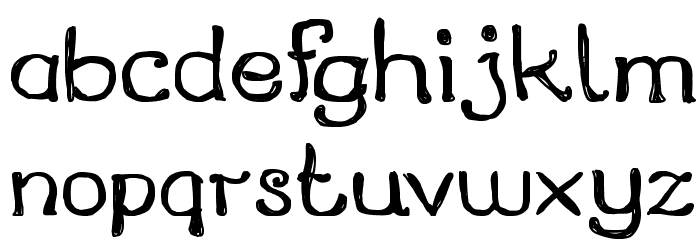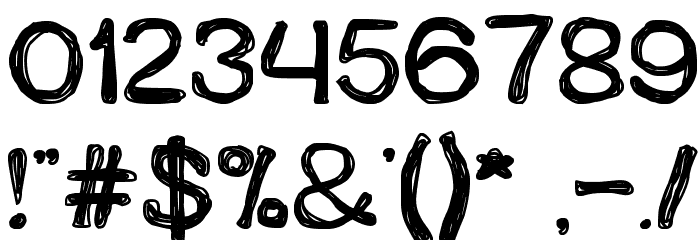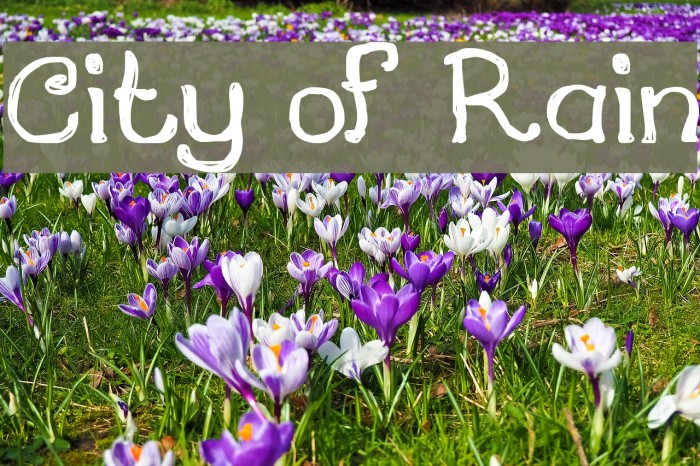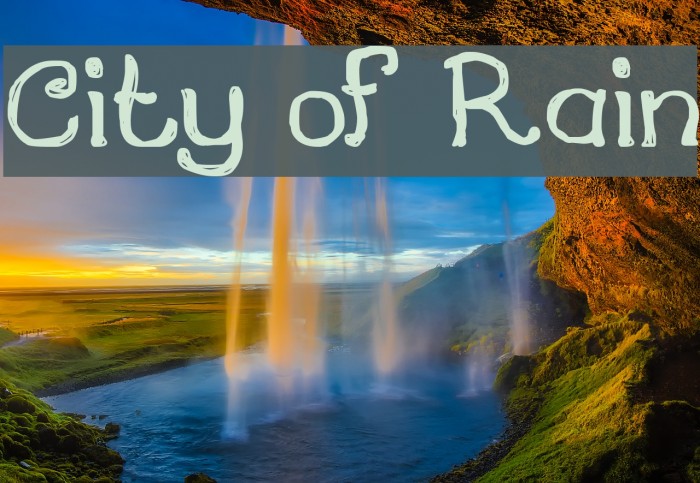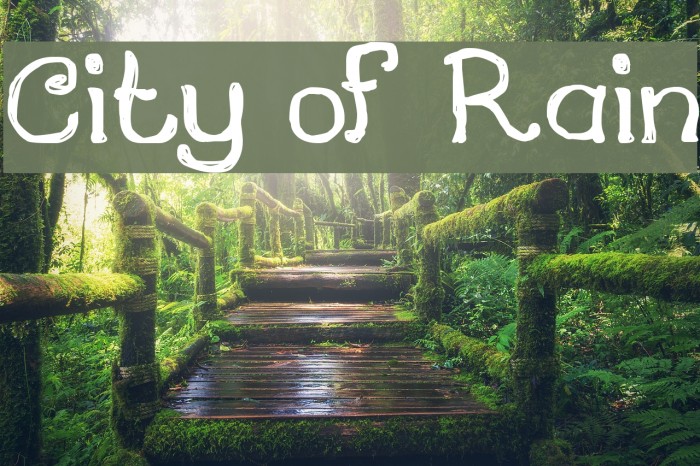
City of Rain Font
This font features a playful and artistic style, reminiscent of hand-drawn lettering with a whimsical touch. The characters are bold and slightly irregular, giving them a unique, organic feel. The strokes vary in thickness, adding a dynamic and lively appearance. The uppercase and lowercase letters maintain a consistent style, with rounded edges and a slightly uneven baseline that enhances the handwritten aesthetic. Numbers and special characters follow the same playful design, making the font versatile for creative projects. Its distinct personality makes it suitable for designs that require a touch of individuality and charm.
A playful, hand-drawn style font with bold, irregular strokes and a whimsical feel.
- Proposed Projects: Ideal for children's books, creative posters, playful branding, and artistic invitations.